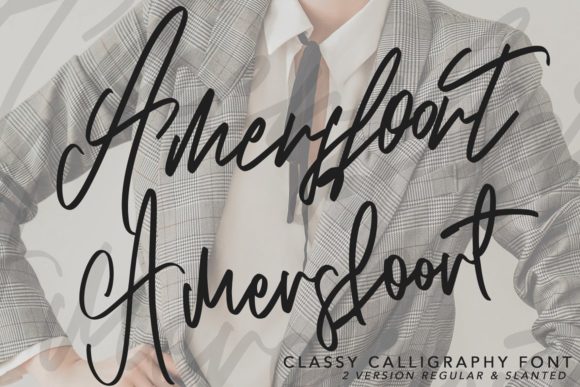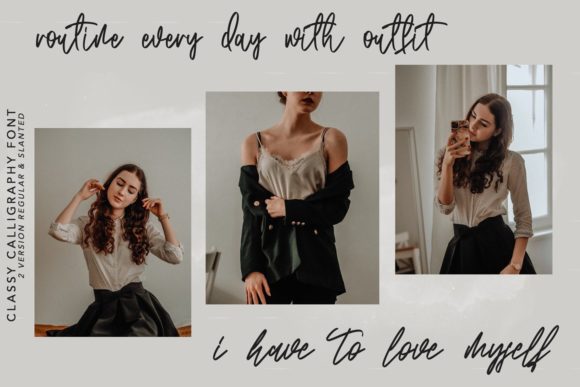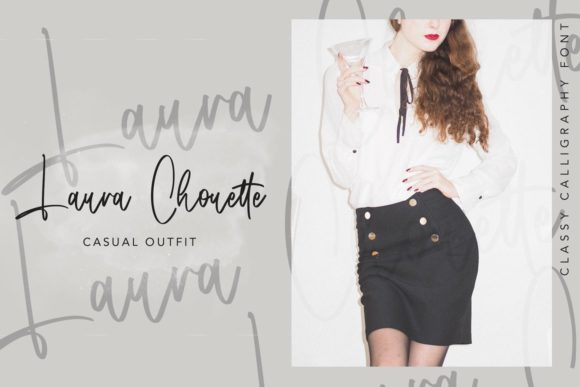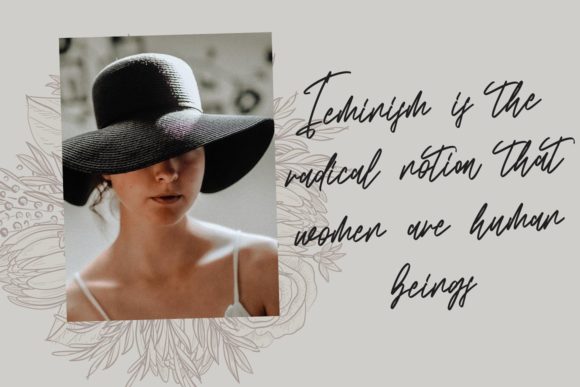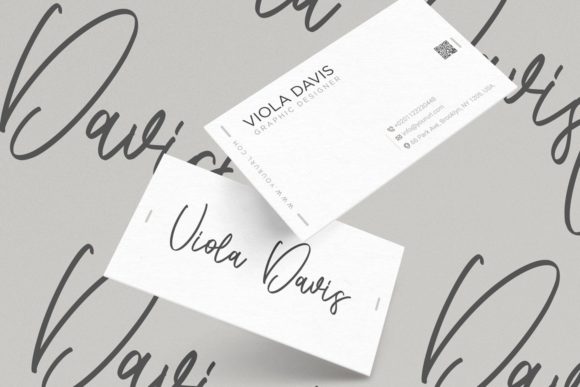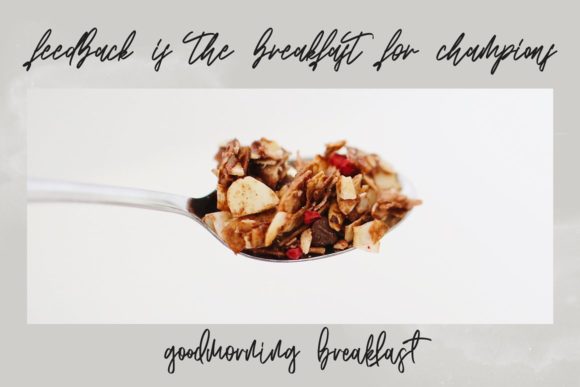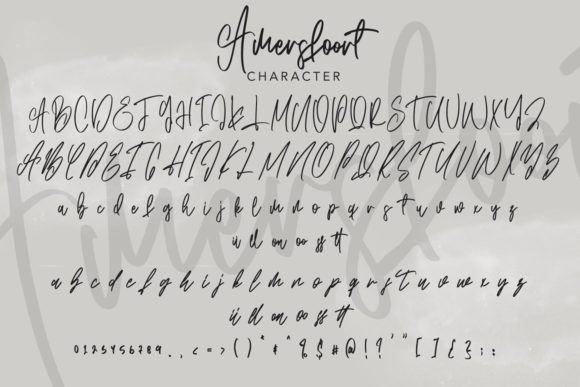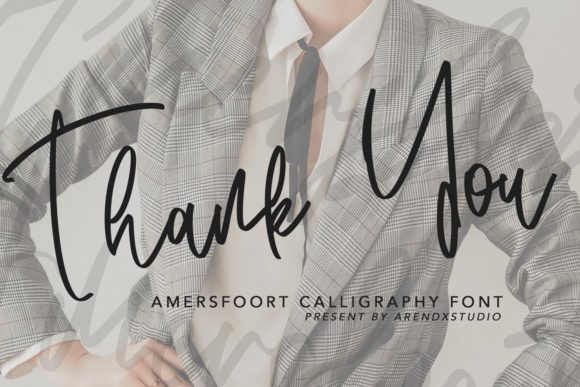
Amersfoort Font
About Amersfoort Font
Amersfoort is a tall and classic handwritten font. A little bit quirky, this font looks incredibly adept on a wide variety of contexts!